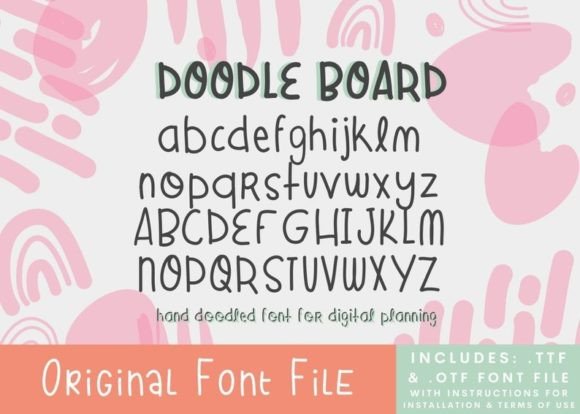
Enter the captivating realm of Doodle Board Font, where creativity meets inspiration. This extraordinary script font, handcrafted by the ingenious Moe Howard, embodies the essence of playful doodles, inviting you on a whimsical journey of self-expression. Doodle Board Font is not merely a collection of letters, but a gateway to unleash your imagination and transform your digital creations into masterpieces.
Imagine the allure of a hand-drawn chalkboard, its charming imperfections and organic charm. Doodle Board Font captures this timeless aesthetic, bringing a touch of nostalgia and warmth to your digital designs. Whether you're crafting social media posts, designing invitations, or adding a personal touch to your presentations, Doodle Board Font will elevate your work with its whimsical flair.
With its diverse range of characters, Doodle Board Font adapts effortlessly to any project. Its playful strokes dance across the screen, adding a touch of whimsy to headings, logos, and quotes. Experiment with different sizes and colors to create eye-catching visuals that demand attention. The possibilities are endless, limited only by your creativity.
Immerse yourself in the world of Doodle Board Font and discover a font that not only enhances your designs but also sparks joy and inspiration. Its unique style is a conversation starter, inviting viewers to engage with your content and explore the depths of your creativity. Whether you're a seasoned designer or just starting your artistic journey, Doodle Board Font will empower you to create captivating visuals that leave a lasting impression.